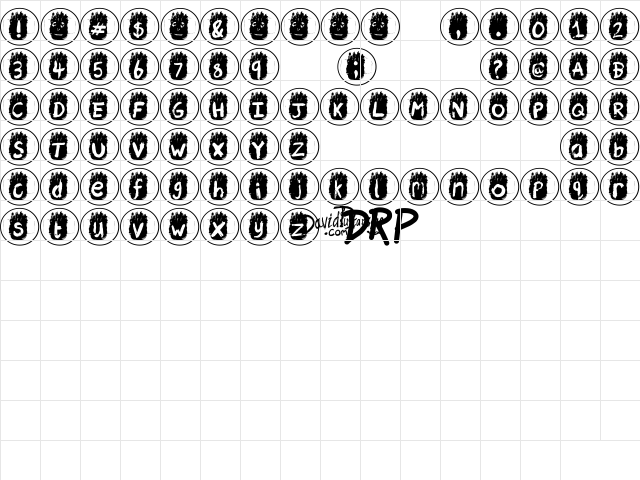
WILSON!* Regular Free Font
WILSON!* Regular
Design Context for WILSON!*
WILSON!* is a composed and adaptable typeface that performs quietly and consistently across a wide range of design contexts.